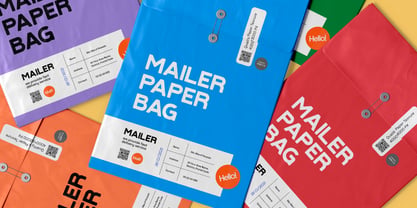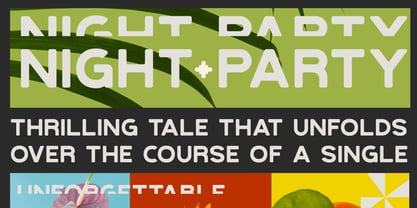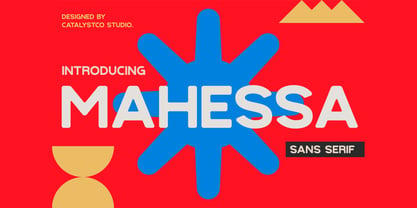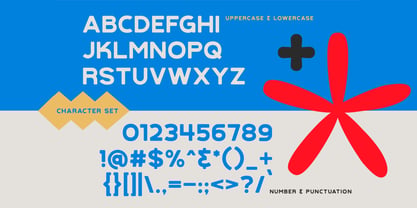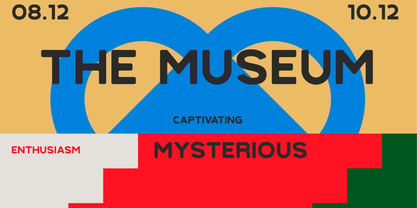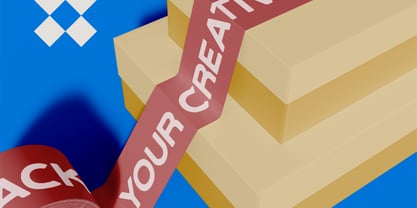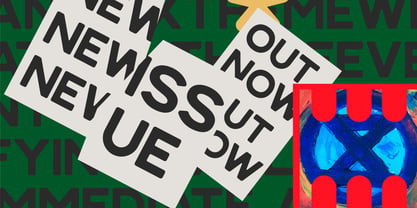
Mahessa
by Catalystco Std
The Mahessa Font Family was designed by and published by Catalystco Std. Mahessa contains 1 styles. More about this family
Mahessa is a bold rounded sans serif font with playful geometry, soft corners, and strong visual presence. The character design features wide proportions, clean strokes, and friendly shapes that feel modern yet expressive. It includes uppercase, lowercase, numbers, and punctuation with consistent weight and rhythm. Relevance and Use Cases is perfect for branding identities, logo design, packaging graphics, poster headlines, editorial titles, social media visuals, children-friendly branding, creative studios, lifestyle products, event promotions, and bold typographic compositions that need a fun yet professional tone.